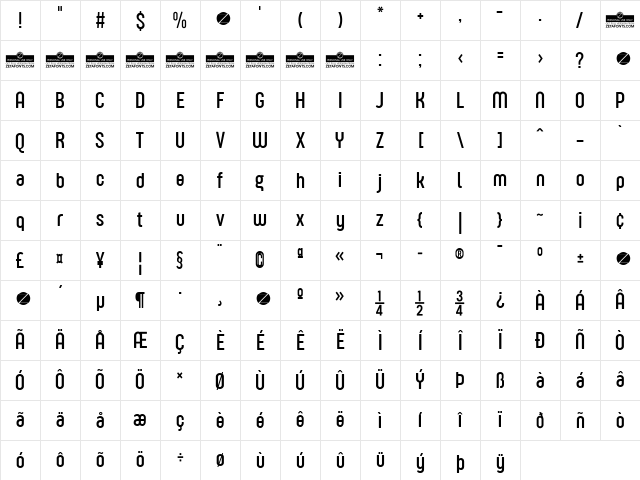
Sugo Pro Display Trial Light Free Font
Sugo Pro Display Trial Light
Foundry: Zetafonts
Designer: Cosimo Lorenzo Pancini
Sugo Pro Display Trial Family
Sugo Pro Display Trial Light
Design Context for Sugo Pro Display Trial
Sugo Pro Display Trial is built around its visual character rather than neutral utility - its distinctive forms are designed to make an impression at display sizes. Its slender proportions lend an understated elegance to any composition.
Font Pairing: Pair with a clean neutral sans-serif for body copy to let Sugo Pro Display Trial's character lead without overwhelming the composition.
Pro Tip: Use Sugo Pro Display Trial exclusively at display sizes - it was designed to be seen, not read at length. Let a neutral companion handle body copy.